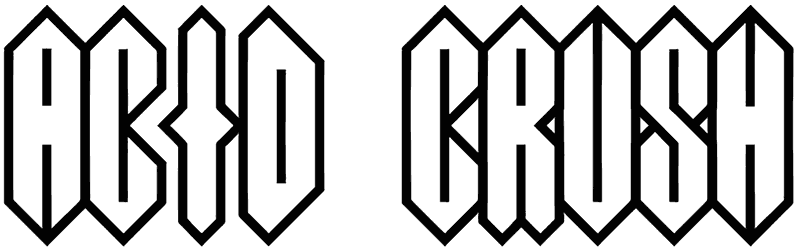
Acid Crush Font
Acid Crush’s bold, striking, detailed strokes make it instantly recognizable and add elegance to any design project. This gothic font with sharp edges and tight lines can show new aspects of your ideas.
This outline font is a versatile and creative way to add trim and style to your projects. So whether you’re designing a poster or want to give your brand a new shape, the constant appeal can take you to new heights, even though it doesn’t have small letters.
Did this font back in 2022 cause I needed to work on a logo that changed name all the time and none of the “Cool S” fonts available fit the specific designs rules I was following for the characters, so I made so many characters that I ended up just needing a few glyphs to complete the font.